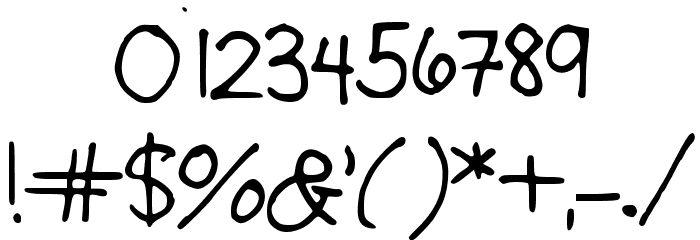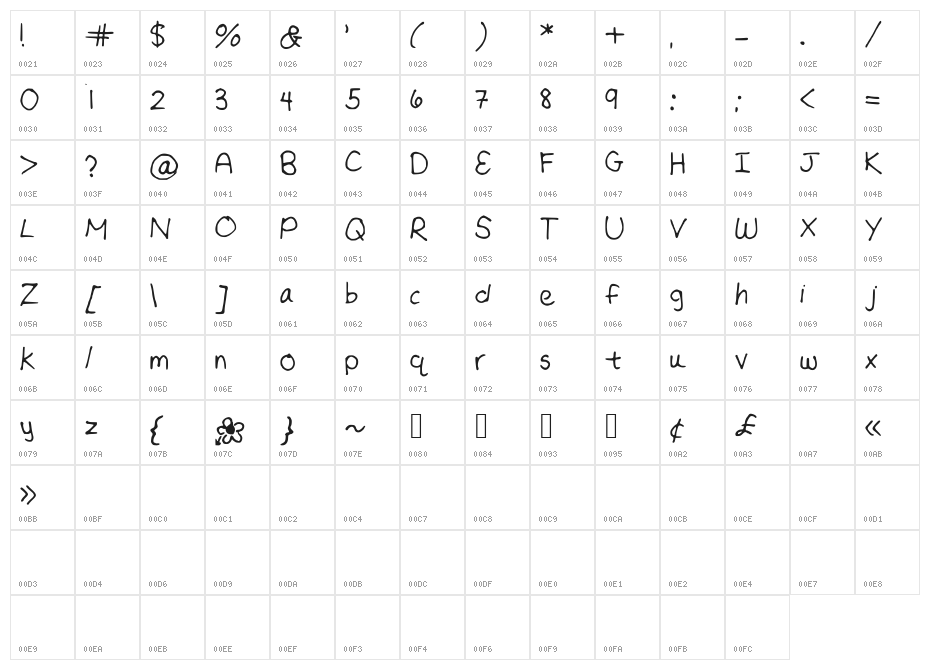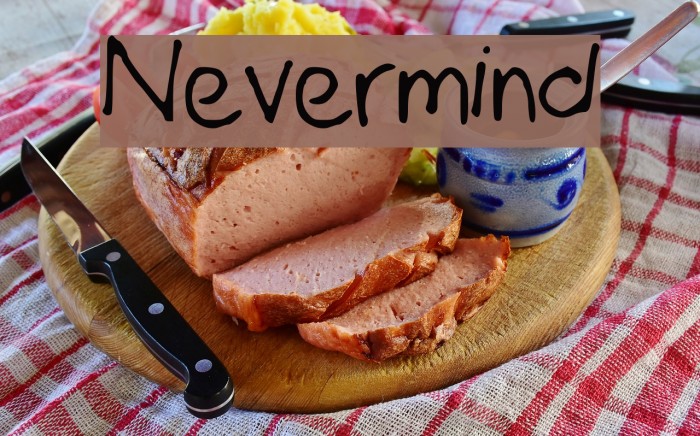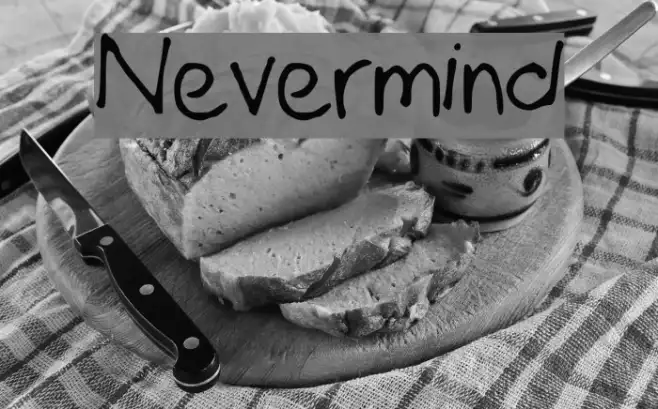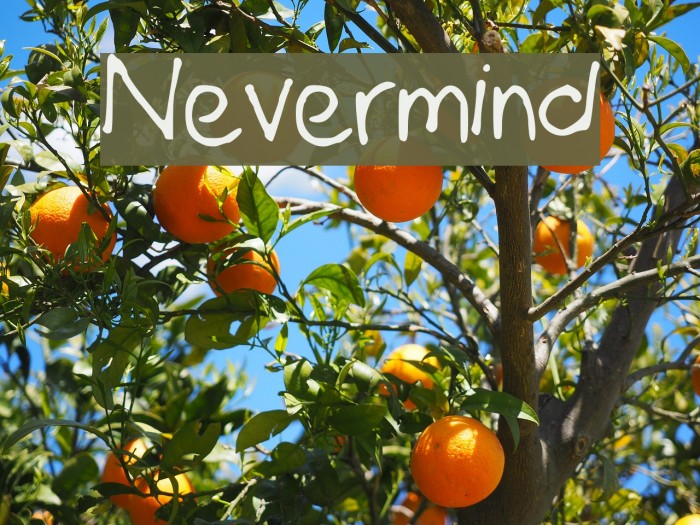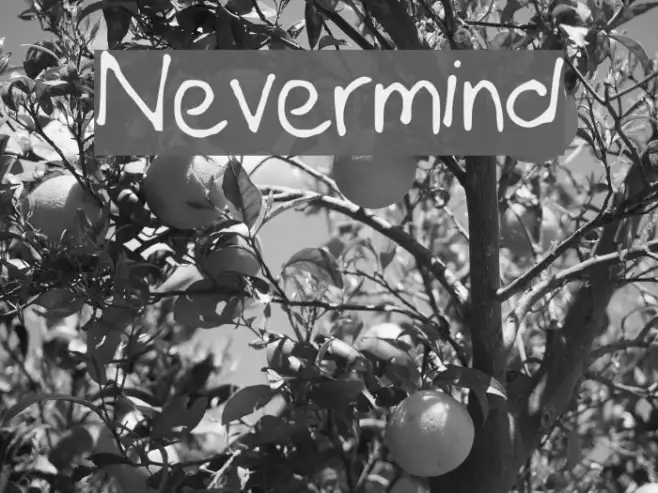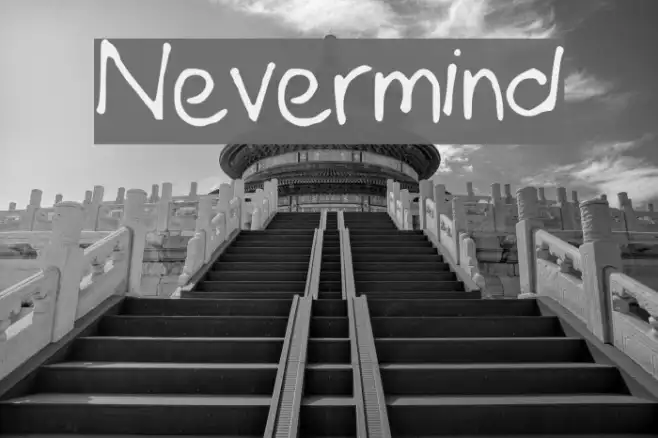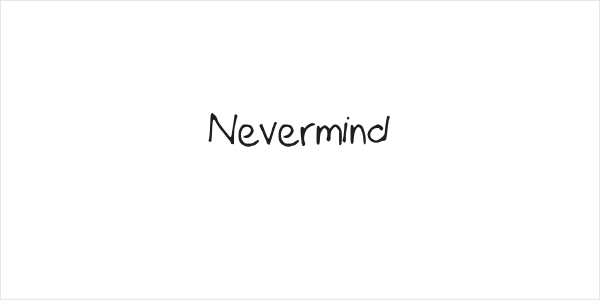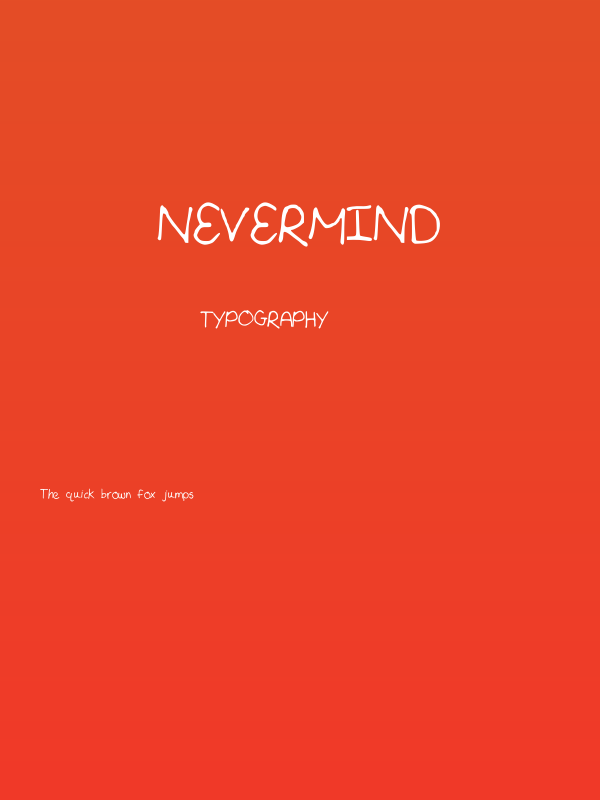
Nevermind Font
Nevermind Description
This font features a playful and casual handwritten style, characterized by its rounded and smooth letterforms. The strokes are consistent in thickness, providing a uniform appearance that enhances readability. The uppercase and lowercase letters maintain a friendly and approachable vibe, making it suitable for informal and creative projects. The numerals and special characters are crafted with the same playful touch, ensuring a cohesive look across all text elements. The overall design is reminiscent of a personal note or a casual greeting card, offering a sense of warmth and personality.
| Proposed Projects | Ideal for greeting cards, children's books, personal notes, and creative branding projects. |